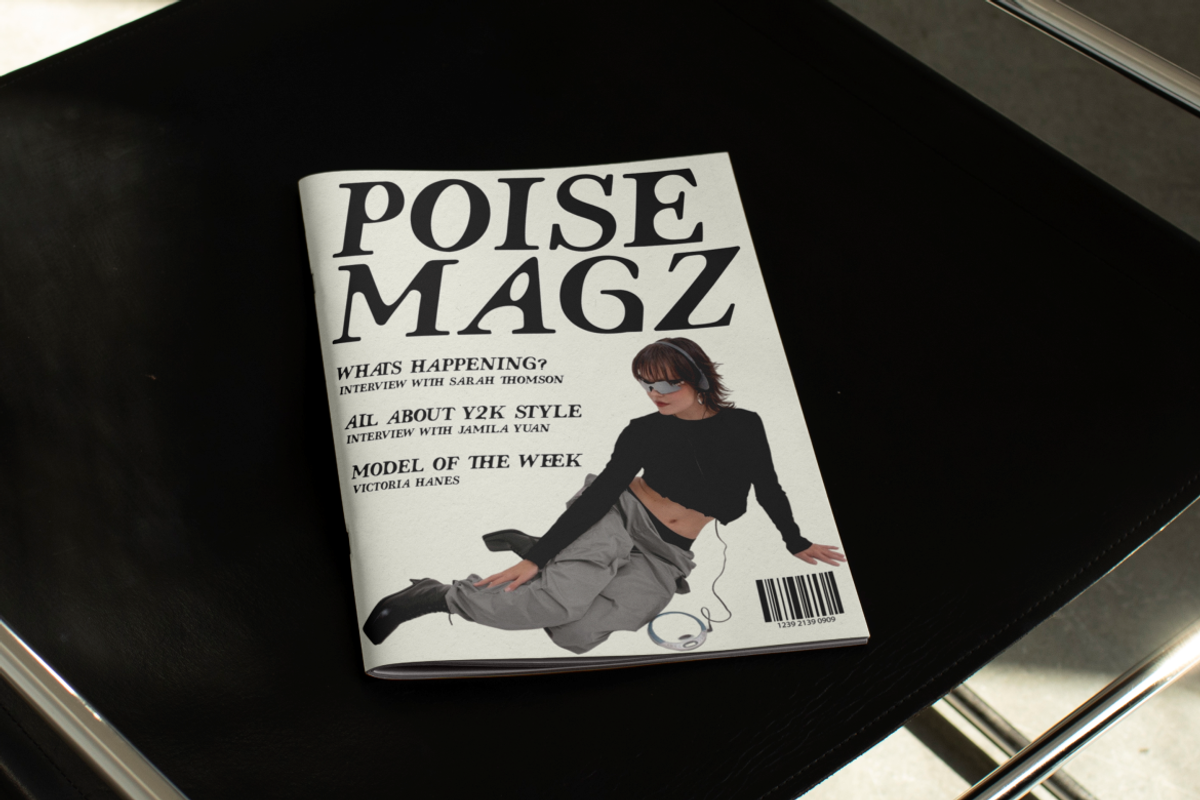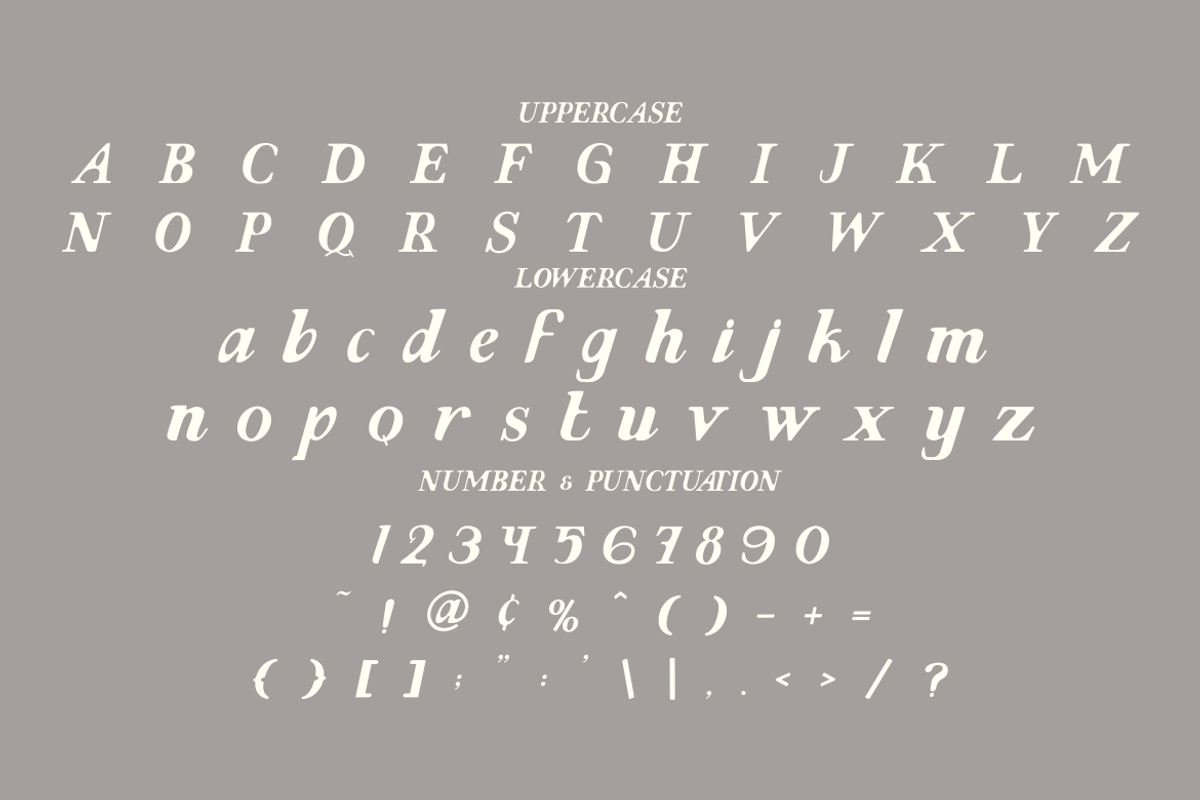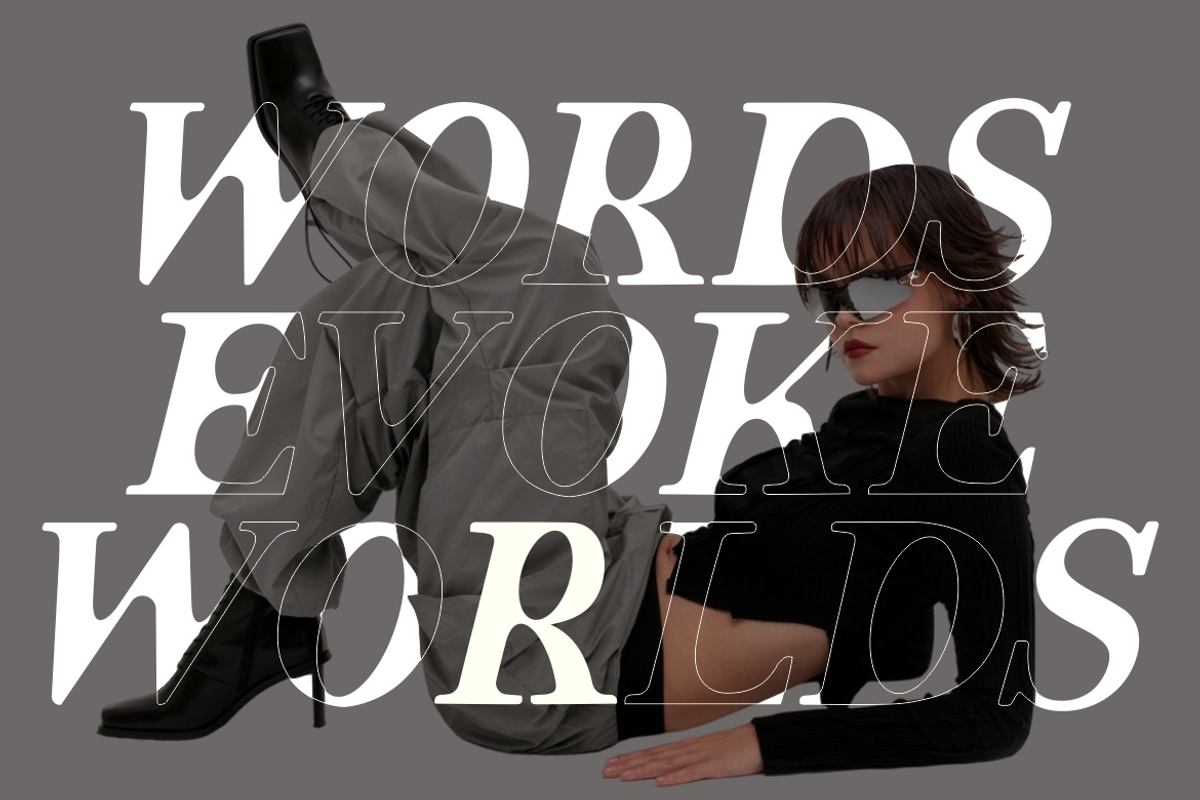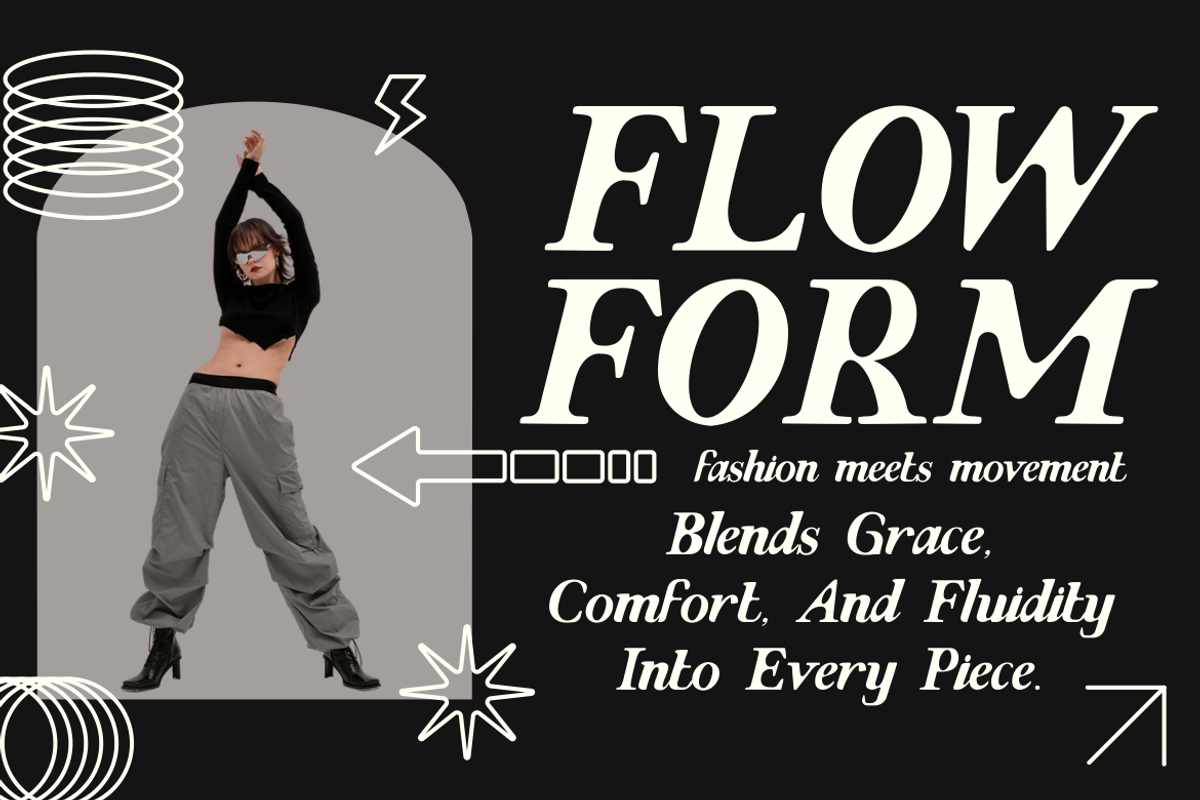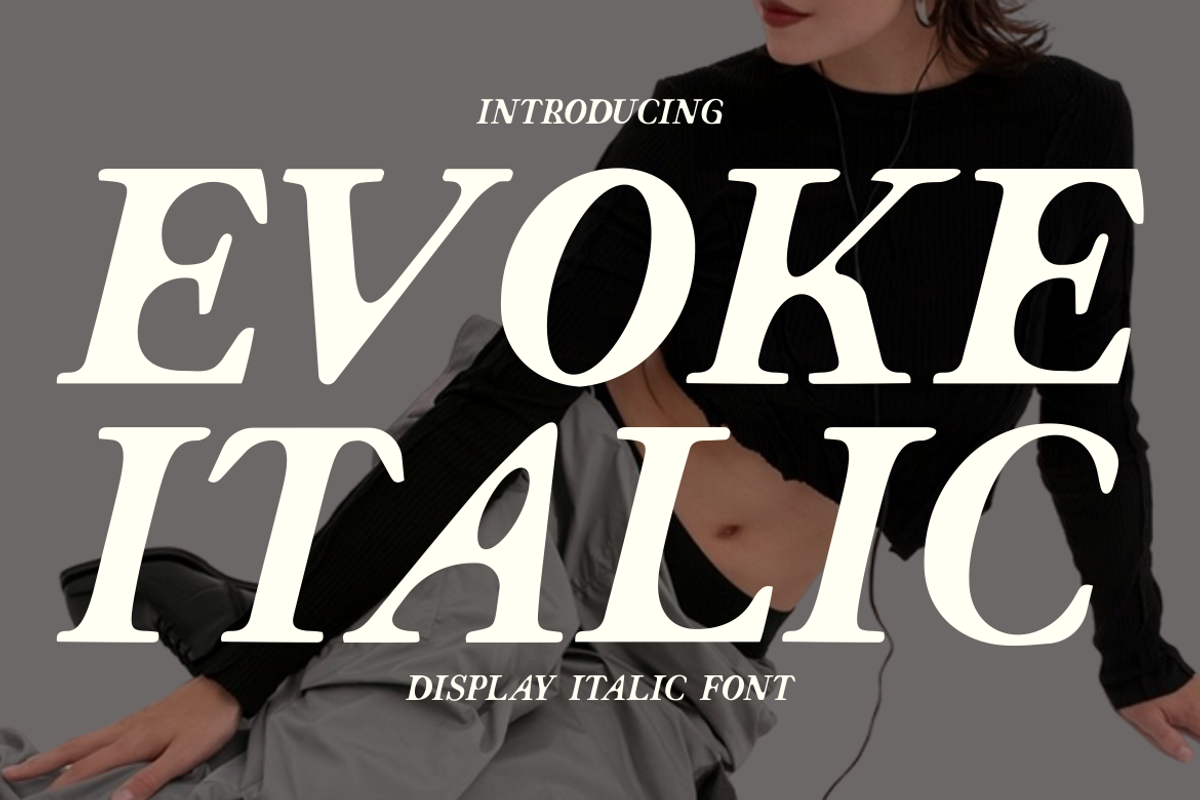
Evoke Italic - Italic Font
Introducing Evoke Italic - Italic Font, a bold and sophisticated typeface designed for modern elegance and timeless appeal. This display serif font features soft rounded edges and a sleek italic tilt, creating a dynamic yet graceful look. The thick, well-balanced strokes give off a contemporary yet classic vibe, making it ideal for projects that need a touch of refinement and high-end aesthetics. The background of the design blends muted gray tones with a stylish, fashion-inspired photography element, emphasizing the font’s luxurious and trendy essence. This combination of a minimal yet striking visual makes Evoke Italic a perfect choice for designers who want to create impactful branding, editorial, or advertising materials.
Whether you’re working on a premium fashion brand, upscale packaging, modern invitations, or bold editorial headlines, Evoke Italic is your go-to font. Its smooth curves and dynamic slant make it versatile for both digital and print media, offering a perfect balance between tradition and innovation. Ideal for logos, posters, book covers, and creative projects, this font effortlessly elevates your designs with sophistication and style. Make a statement with Evoke Italic, where elegance meets modern creativity.